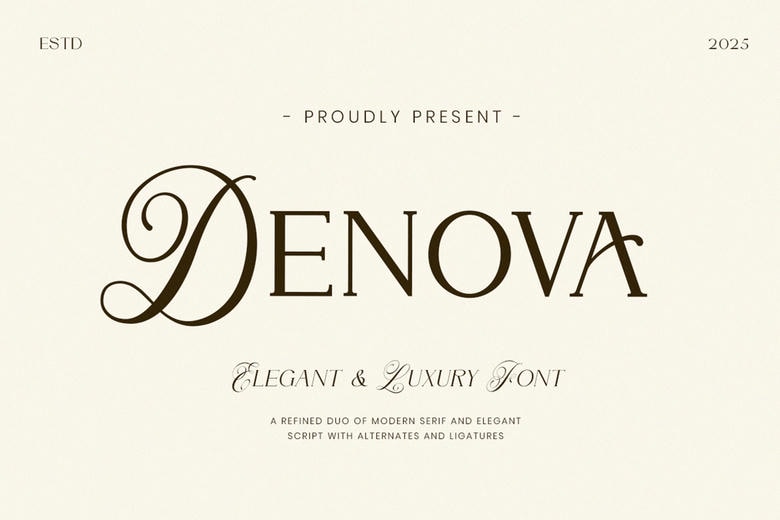
Denova Font
Denova is a high-end pair of contemporary serif and gracefully flowing script fonts, which will provide your branding with a classic look. Denova represents a fine balance of solidity and softness, in which the serif is confident in its strong proportions and elegant contrast and the script is flowing with the elegance and carefree approach of elegant swashes and trendy details.
This is a versatile pair that is perfect to present high-end brands, which can be used to add a very polished and high-end look to projects in the beauty, fashion, wedding, or boutique markets. This is why Denova will be the star of your typography toolkit: its contemporary, luxurious serif and graceful script wrapped in gorgeous swashes; its stylish alternates and ligatures and a perfect sense of boldness and subtle beauty. Love to design with Denova!
Denova Serif Font